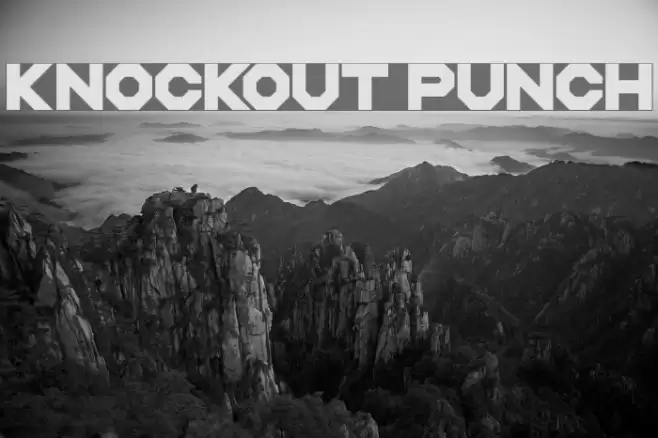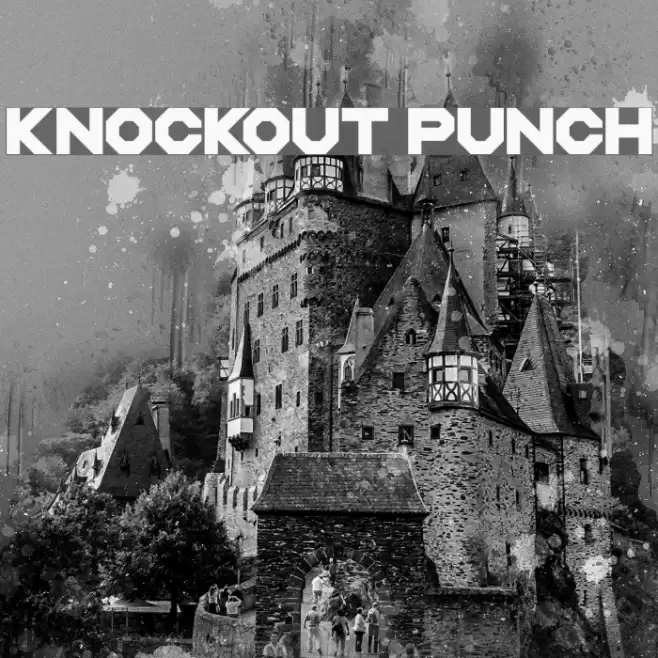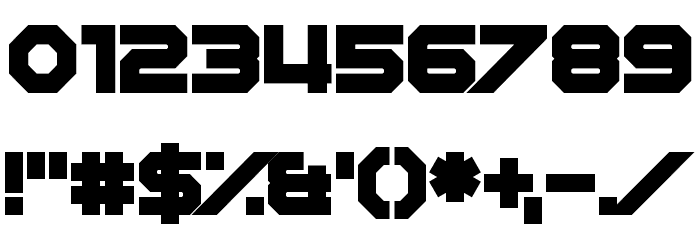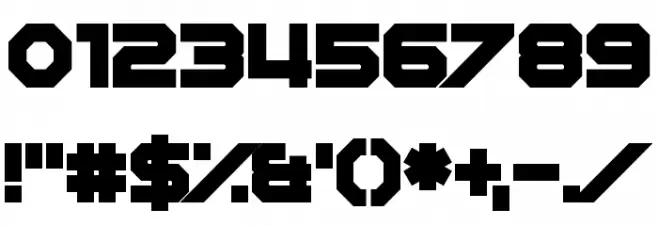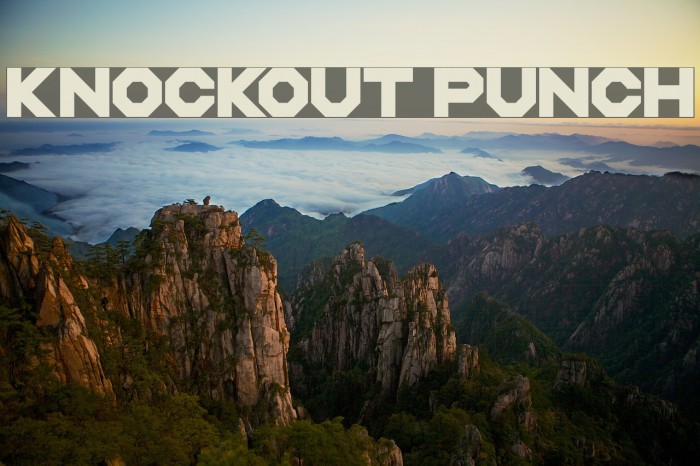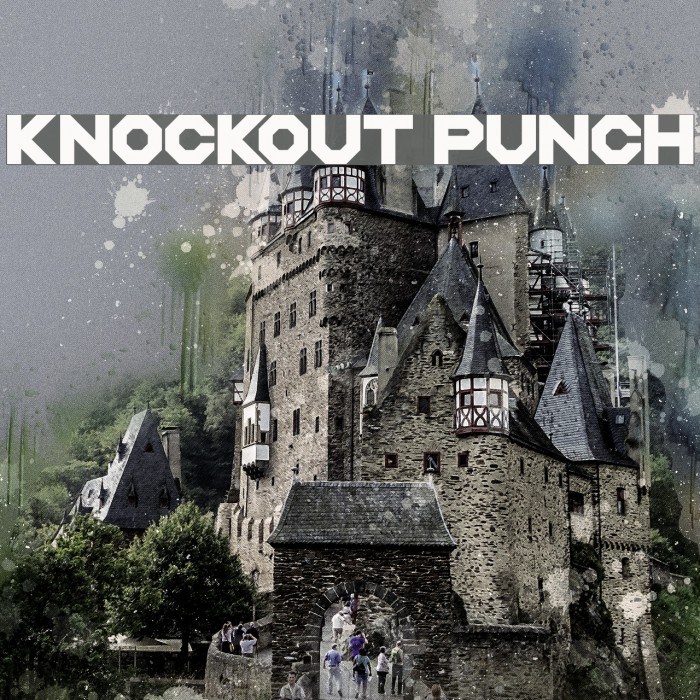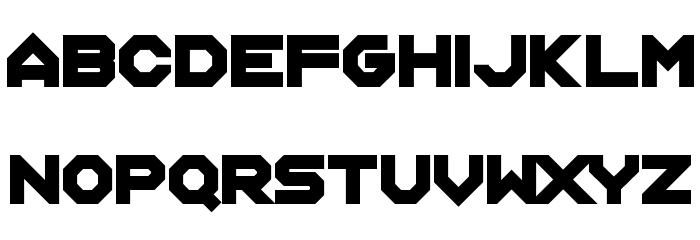
Knockout Punch Font
Knockout Punch Description
This font features a bold, geometric design with sharp, angular edges and a strong presence. The characters are constructed with thick strokes and a uniform weight, creating a cohesive and impactful appearance. The style is reminiscent of industrial or futuristic themes, with a modern twist that makes it suitable for attention-grabbing headlines or logos. The uppercase letters are particularly striking, with a consistent height and width that enhances readability. The numerals and special characters maintain the same bold aesthetic, ensuring a harmonious look across all text elements.
A bold, geometric font with sharp angles and a modern, industrial feel from Uncategorized fonts.
- Proposed Projects: Ideal for branding, posters, video game titles, and any project requiring a strong, modern aesthetic.